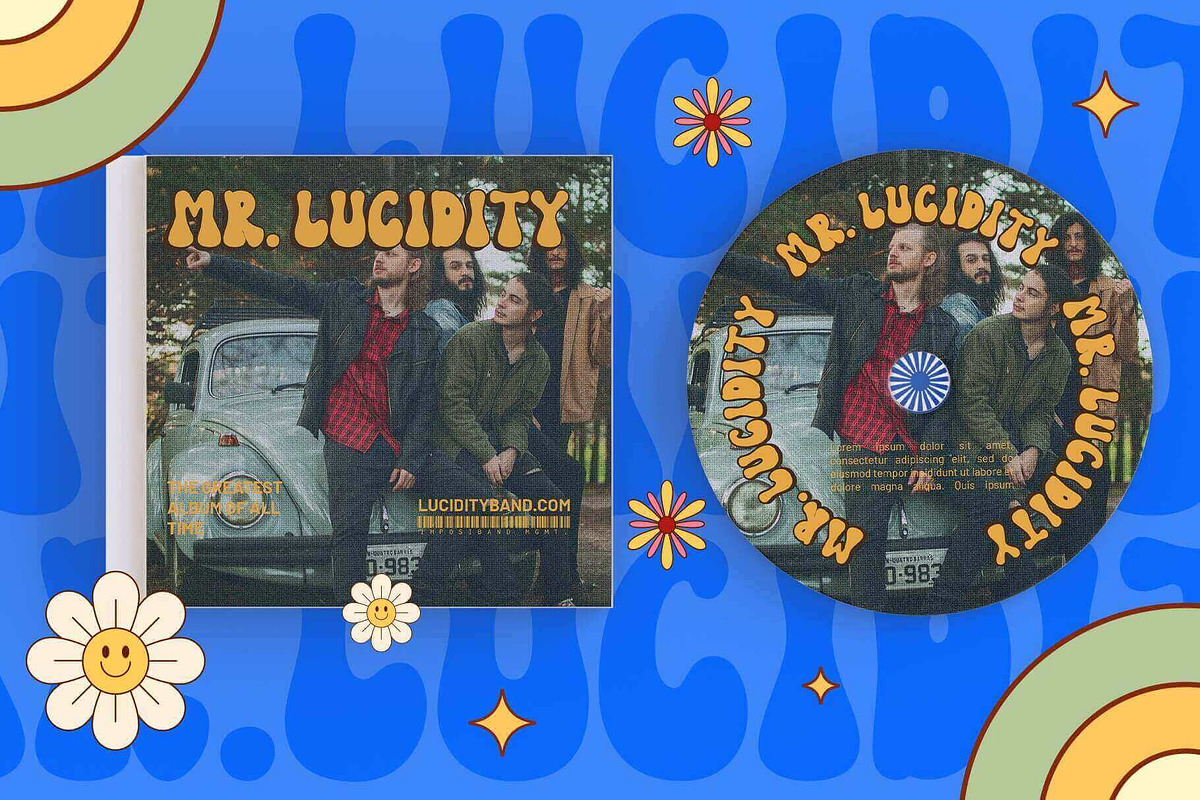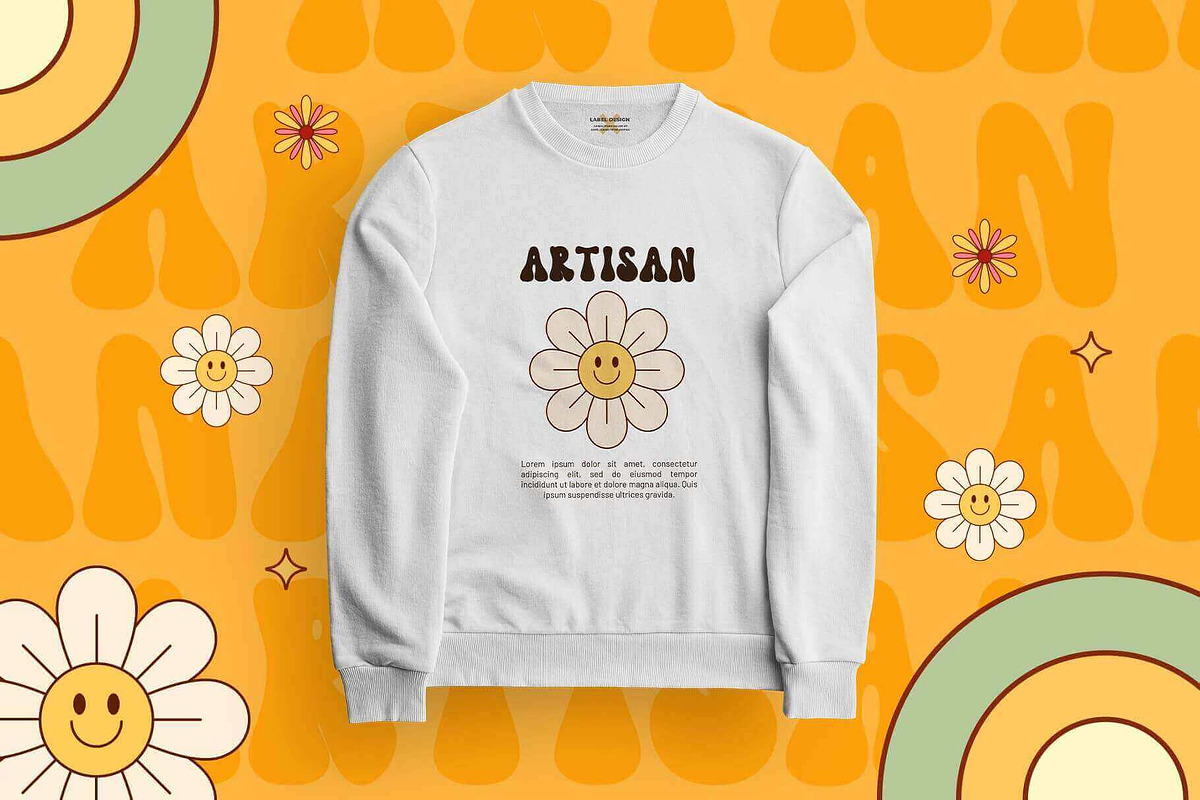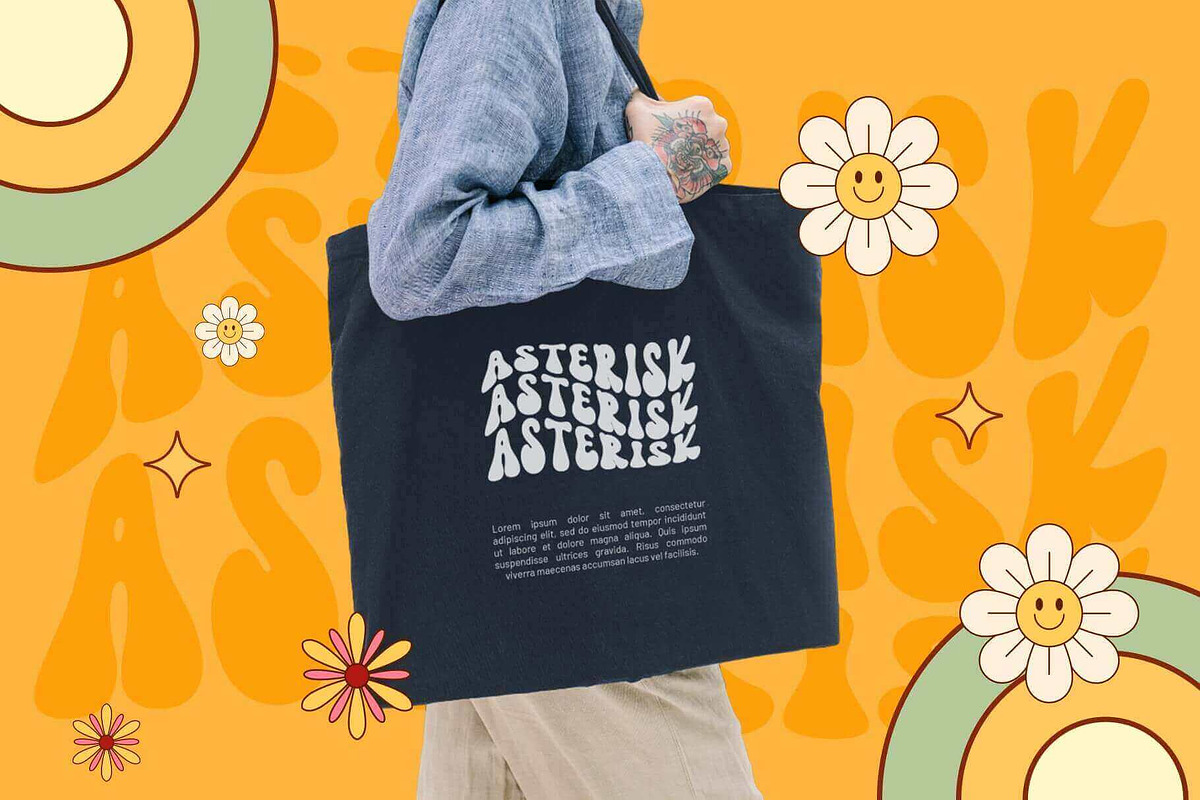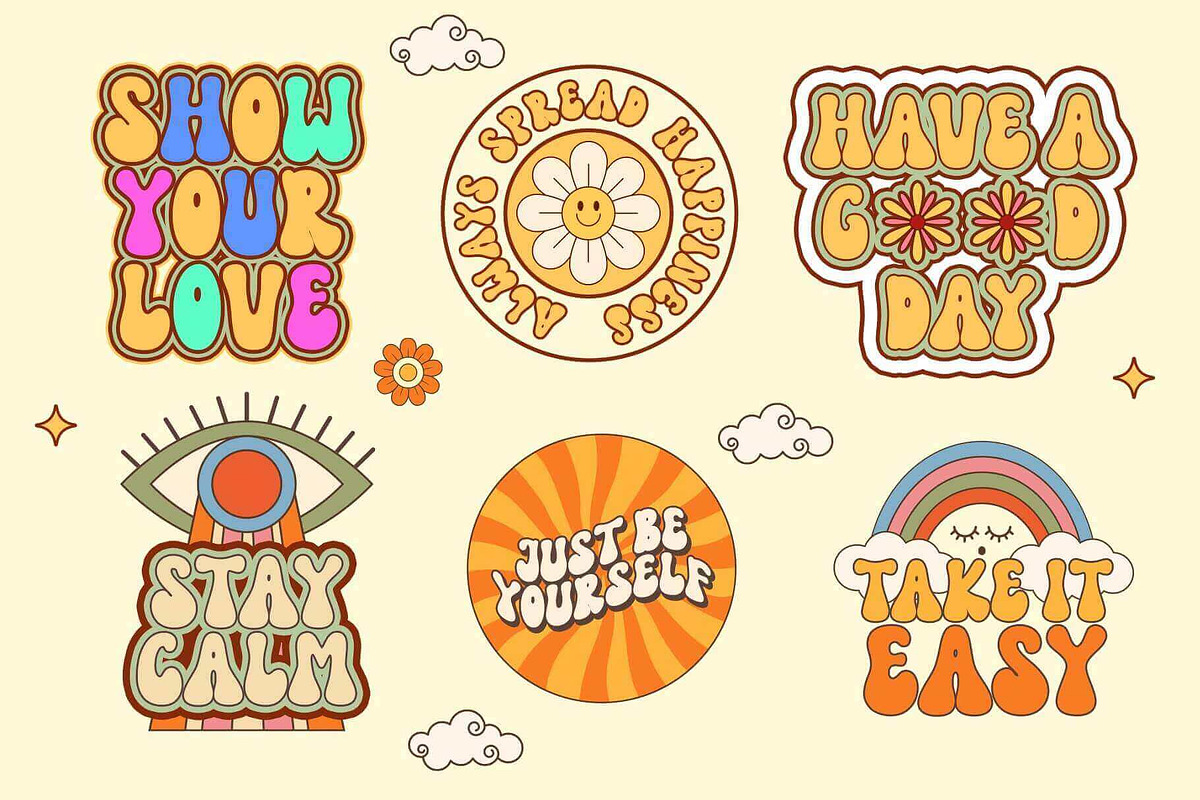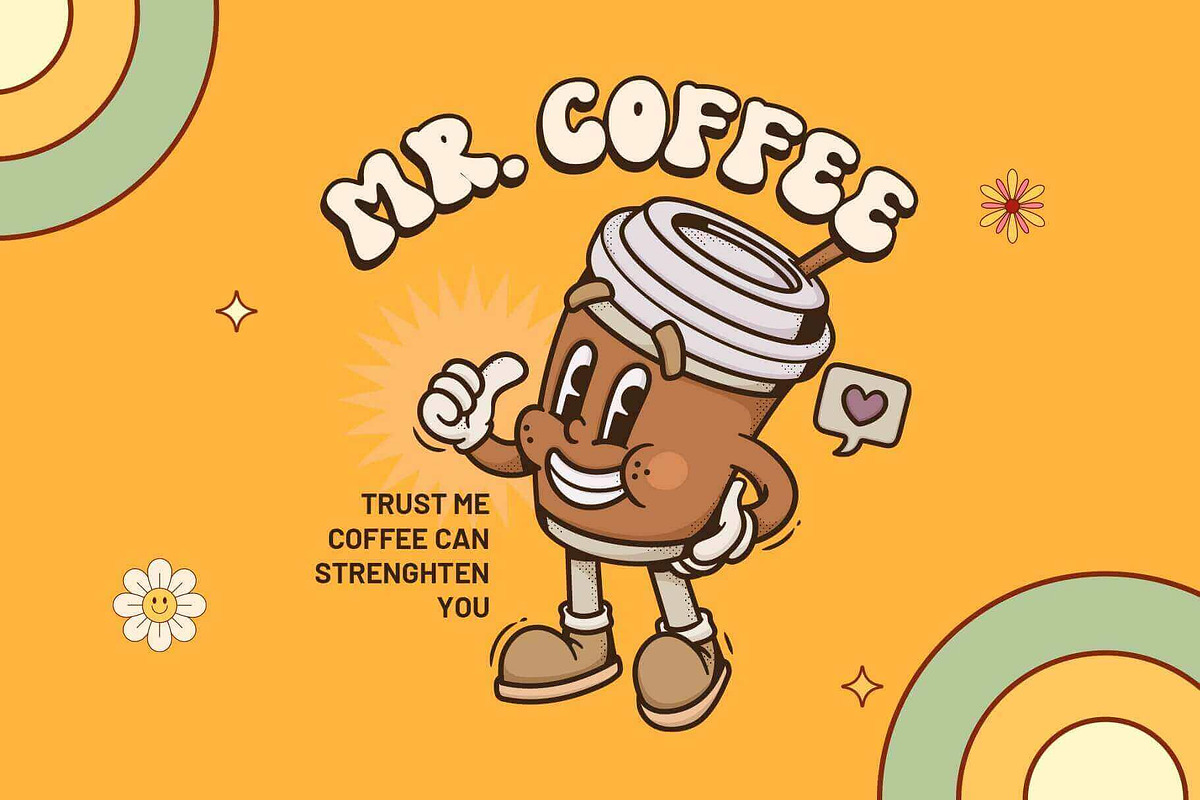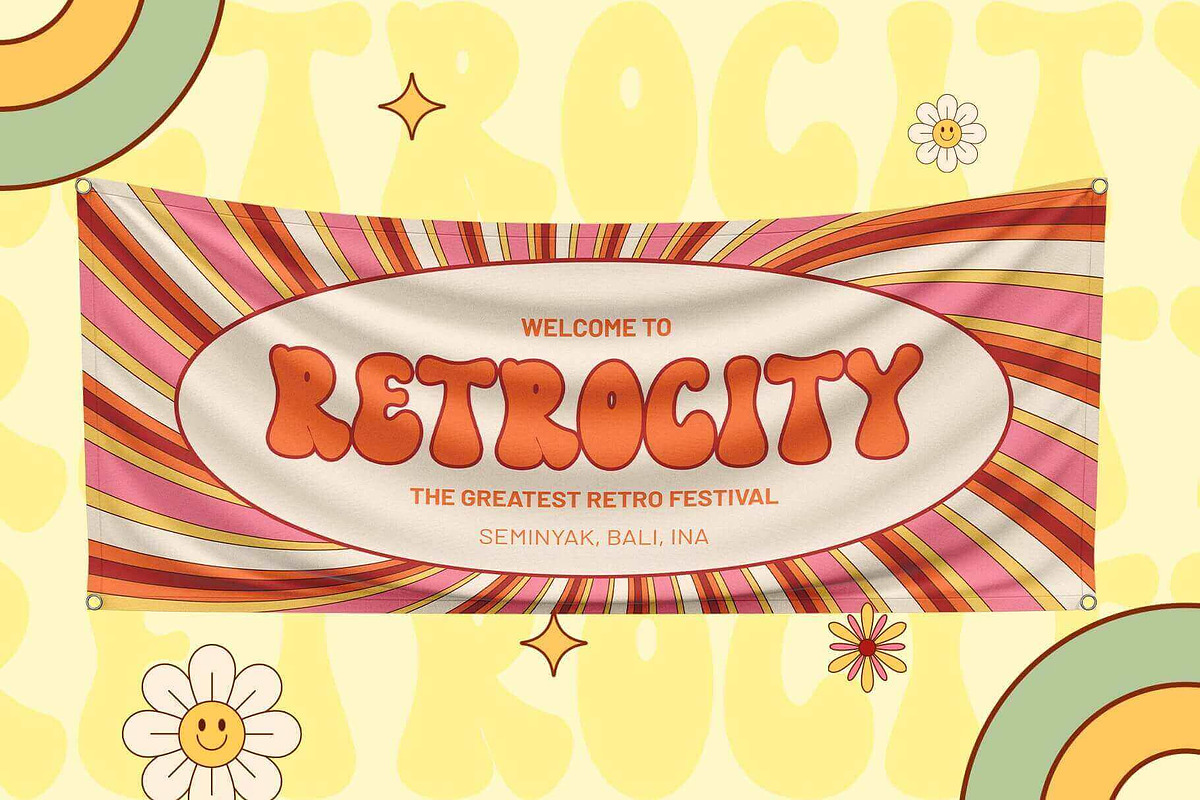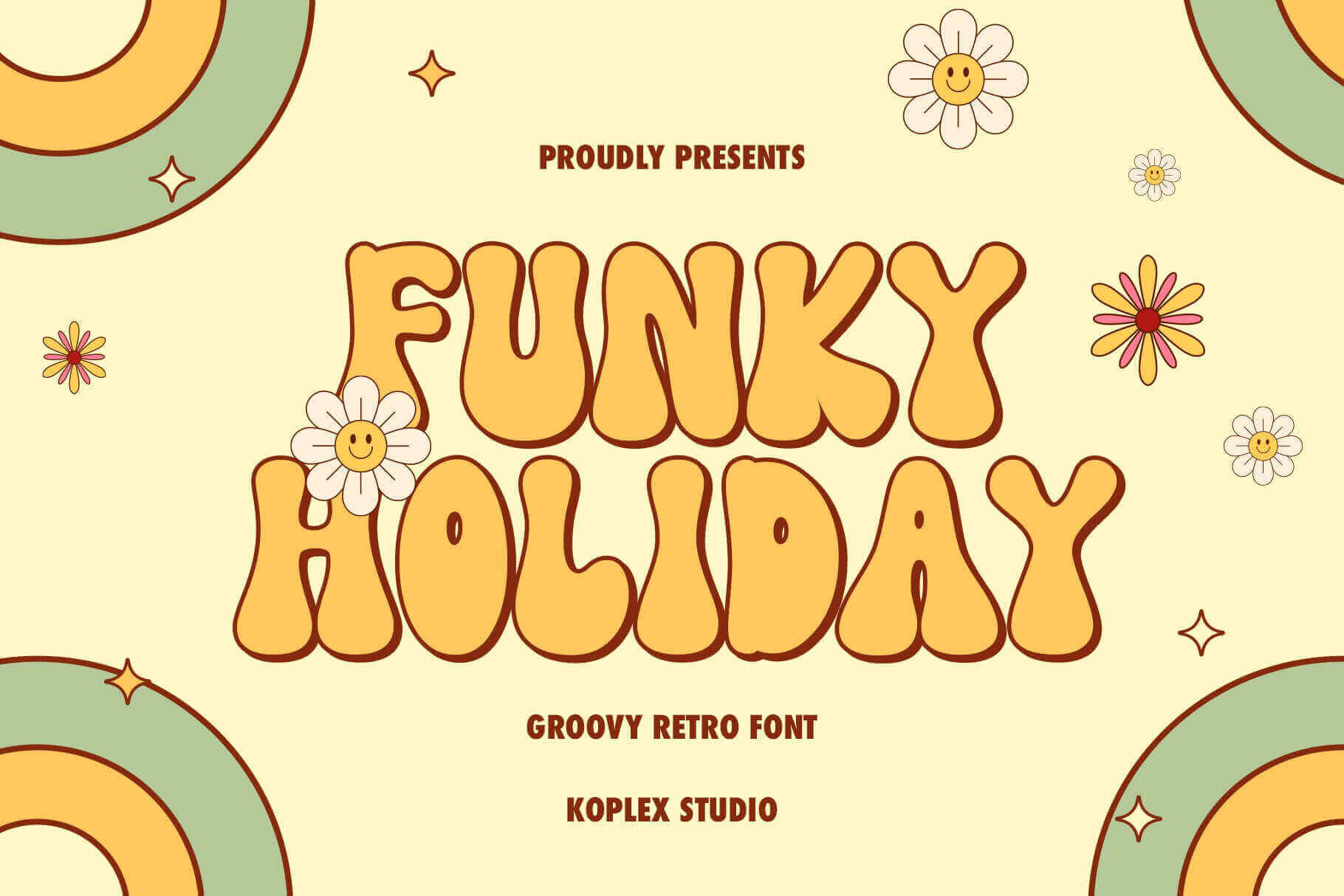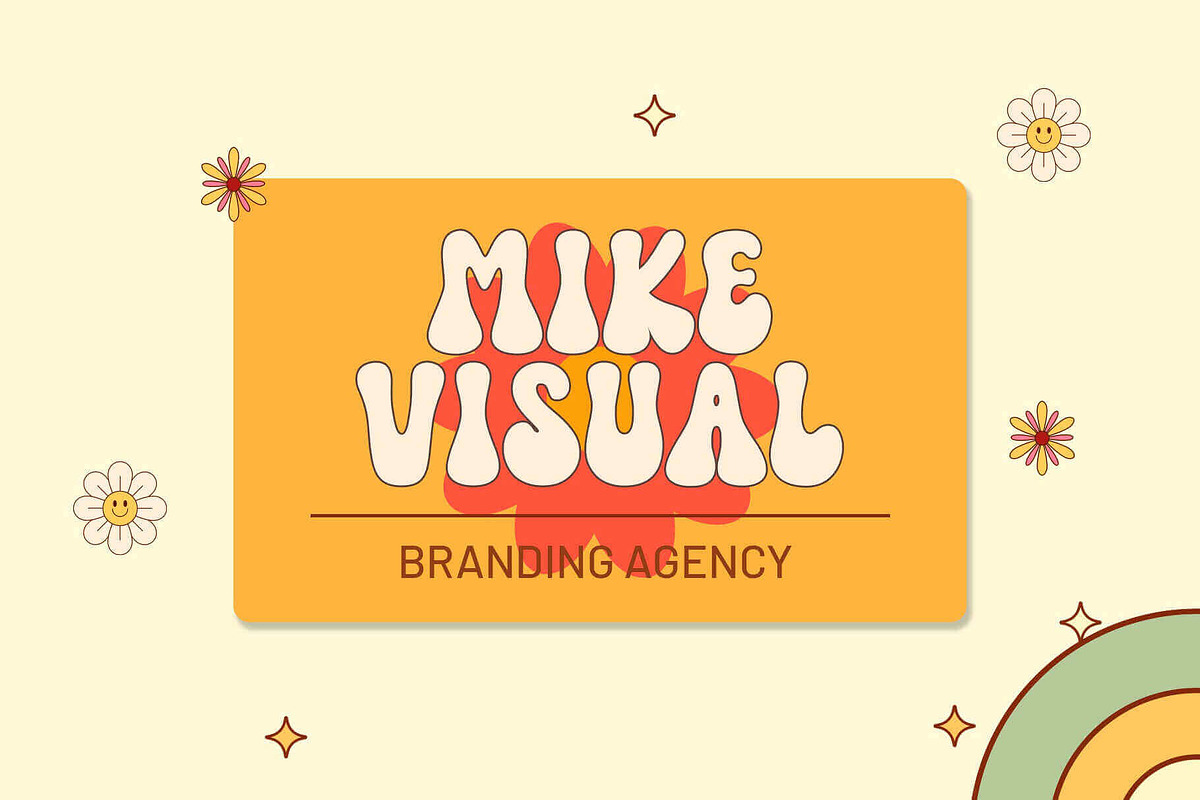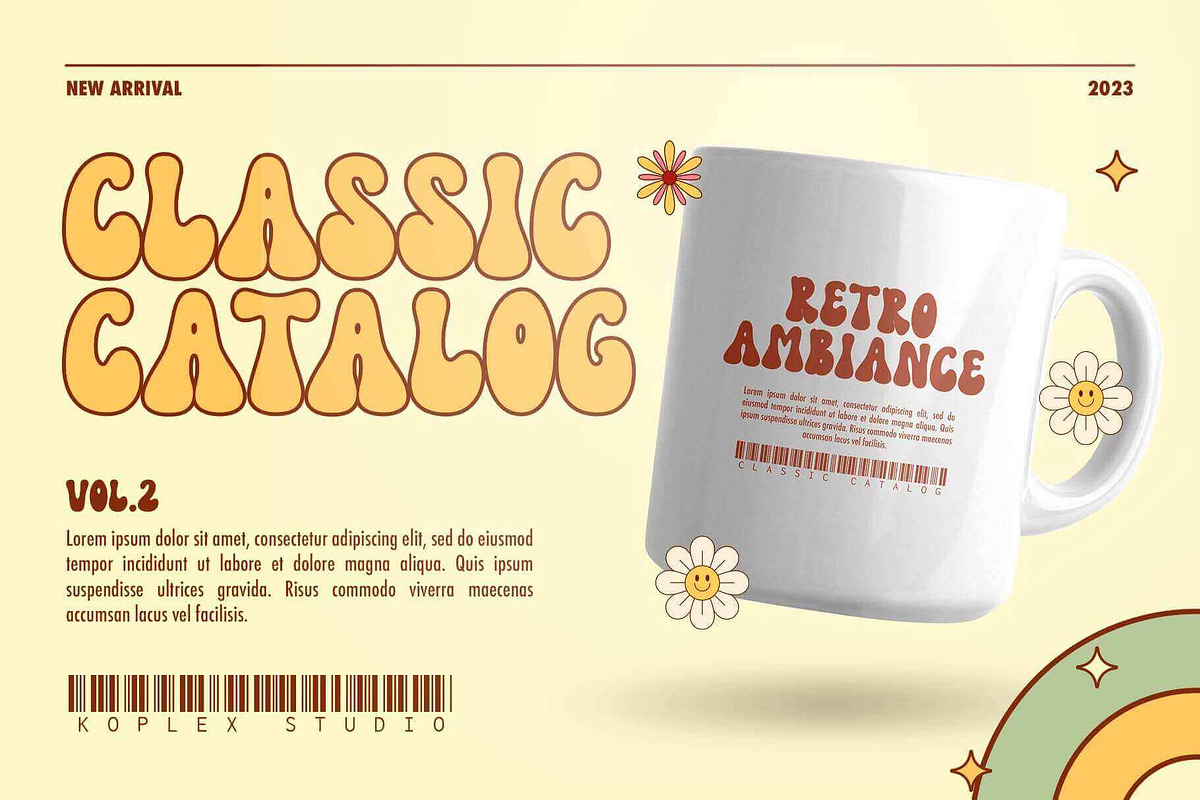
Funky Holiday - Groovy Retro Font
Funky Holiday - Groovy Retro Font is a vibrant and nostalgic font that will transport you to the cheerful and carefree atmosphere of the 70s. This font embodies the essence of retro design with its bold and playful letterforms, reminiscent of disco parties and funky vibes. With its unique and eye-catching style.
Funky Holiday - Groovy Retro Font is perfect for creating striking product packaging, T-shirt designs, headlines, posters, album covers, and any other design that aims to capture the spirit of the groovy era. Let your creativity run wild and infuse your projects with a touch of retro coolness using this fun and energetic font. this font has the potential to bring each of your creative ideas to the highest level!